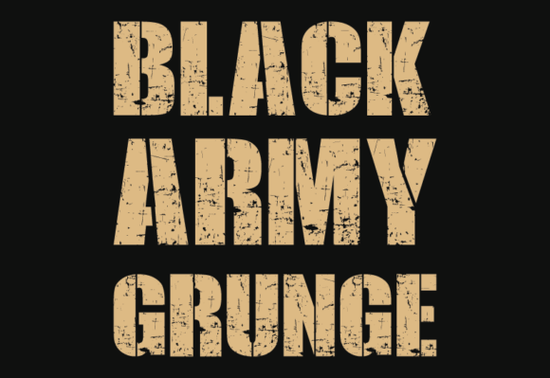
If you're working on a design that needs to look tough, weathered, and full of character, the Black Army Grunge Font is worth a closer look. It blends military-inspired grit with distressed edges, making it ideal for projects that demand attention without trying too hard. Whether you’re designing merch for a streetwear brand, creating logos for a gaming team, or adding edge to vintage-style posters, this font brings a battle-ready aesthetic straight out of the box.
What makes Black Army Grunge stand out from other grunge fonts?
Unlike cleaner display fonts like Aspen, which leans modern and minimal, Black Army Grunge leans into chaos intentionally. Its rough texture, uneven strokes, and worn-in appearance mimic real-world wear and tear. That gives your designs an authentic, hand-stamped feel rather than something overly polished.
Compare it to Banana Bogart, which has playful curves and retro flair, and you’ll see how Black Army Grunge occupies a different creative lane. It’s not whimsical it’s assertive. If your project calls for rebellion, resilience, or raw energy, this font delivers without needing extra effects.
Where does this font work best?
Thanks to its rugged personality, Black Army Grunge shines in specific contexts:
- Streetwear and apparel design – Think bold t-shirt slogans, hoodie graphics, or patch logos that echo urban culture and DIY attitude.
- Gaming and esports branding – Team names, tournament banners, or in-game UI elements benefit from its aggressive silhouette.
- Military- or survival-themed projects – From tactical gear packaging to veteran-owned business logos, it conveys strength and discipline.
- Vintage posters and zines – Pair it with muted colors and grainy textures for a nostalgic but gritty look.
It’s less suited for formal documents, luxury branding, or anything requiring readability at small sizes but that’s by design. This is a display font meant to be seen, not skimmed.
How does it compare to similar bold, textured fonts?
If you’ve used Rough Bold, you know heavy, textured typefaces can vary widely in tone. Rough Bold feels more industrial and structured, while Black Army Grunge leans chaotic and organic like it’s been through actual combat. Similarly, Vespa offers mid-century charm with clean lines, making it a better fit for retro cafes or scooter shops than battlefield aesthetics.
For contrast, Raize Brush brings energetic brushwork to the table great for dynamic headlines but lacking the mechanical toughness of Black Army Grunge. Each font serves a purpose; knowing when to use which comes down to the mood you want to set.
Tips for using Black Army Grunge effectively
Because of its heavy distressing, spacing and sizing matter more than with standard fonts:
- Avoid tight letter spacing – The rough edges can visually merge if letters are too close.
- Use generous sizing – At small point sizes, details get lost. Stick to headlines, logos, or large-format prints.
- Pair with clean supporting fonts – Balance its intensity with a simple sans-serif for body text or captions.
- Test print output – Some printers smooth out fine distress details. Always do a physical proof if your final product is printed.
Also, remember that less is often more. One strong word or phrase in Black Army Grunge can anchor an entire design without overwhelming it.
Who should consider adding this to their toolkit?
This font is especially useful for:
- Print-on-demand sellers creating edgy apparel or wall art
- Indie game developers building immersive title screens
- Small business owners in tactical, outdoor, or urban fashion niches
- Crafters making stencils, wood signs, or vinyl decals with attitude
If your audience responds to authenticity over polish, Black Army Grunge speaks their language.
- Is my project meant to feel rugged, rebellious, or battle-worn?
- Will the font be used at a large enough size to show its texture?
- Do I have a complementary neutral font for secondary text?
- Am I designing for a niche that values raw aesthetics over refinement?
If you answered “yes” to most of these, Black Army Grunge could be the missing piece in your next standout design.